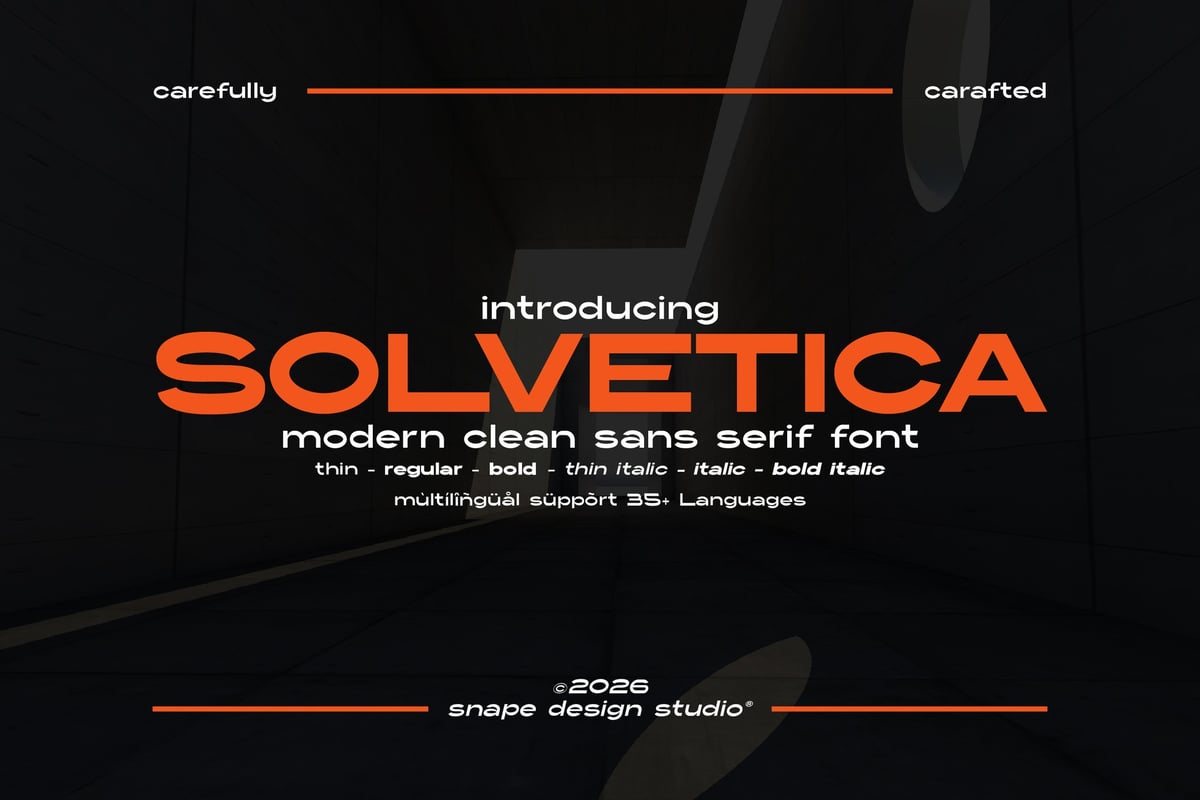
Solvetica – Modern Clean Sans Serif Font
Elevate your designs with Solvetica – a sleek, professional sans serif font that delivers contemporary sophistication. Crafted with balanced proportions and smooth geometric shapes, this modern typeface combines excellent readability with a stylish minimalist aesthetic. Solvetica's clean structure makes it the perfect choice for designers seeking elegant, timeless typography that works across diverse creative applications. This versatile font family includes three carefully designed weights – Th...